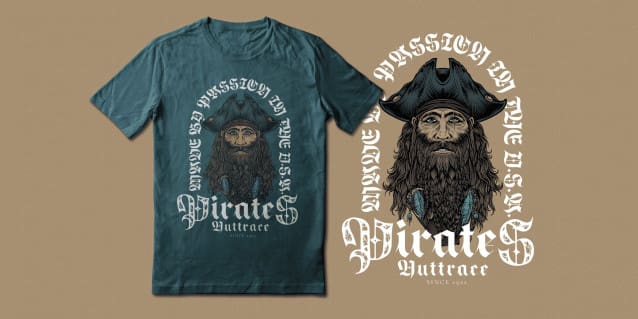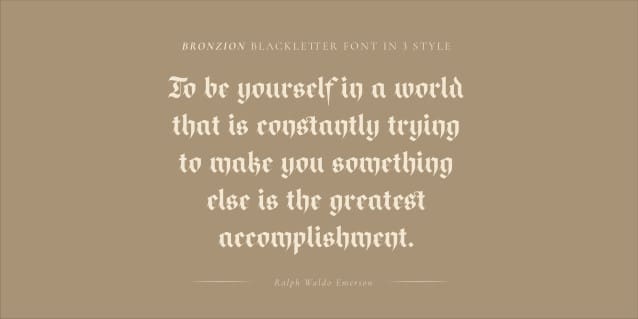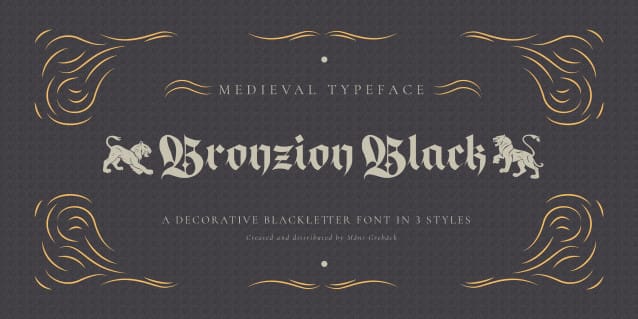
Bronzion Black Font
Bronzion Black Font is a heavy blackletter typeface, offering large capitals that are meticulously hand-painted, providing a raw and authentic touch.
Use characters 🌲🌳🎠🐂🐅🐆🐈🐉🐎🐕🐦🐯🐲🐺👑👸🗡🤴🦁🦅🦇🦌🦎🦓🦖 to create heraldry-like logos and symbols.
Example: Magic🐉Empire